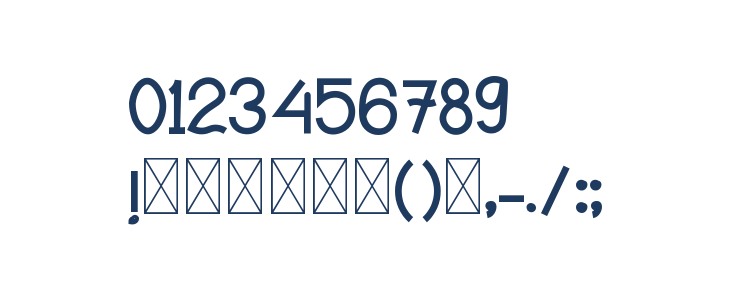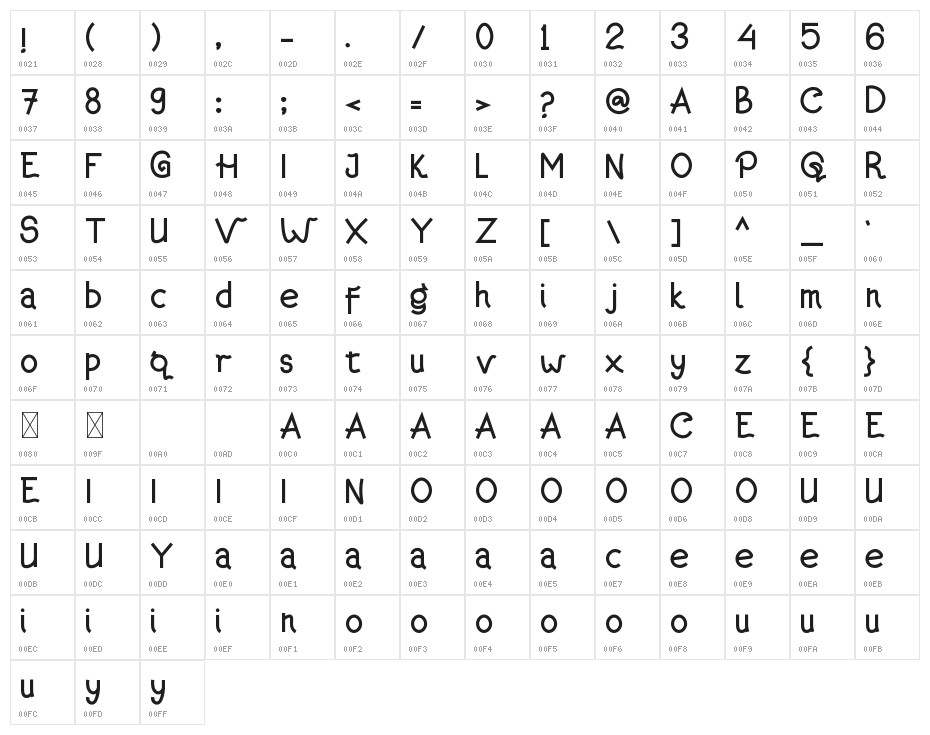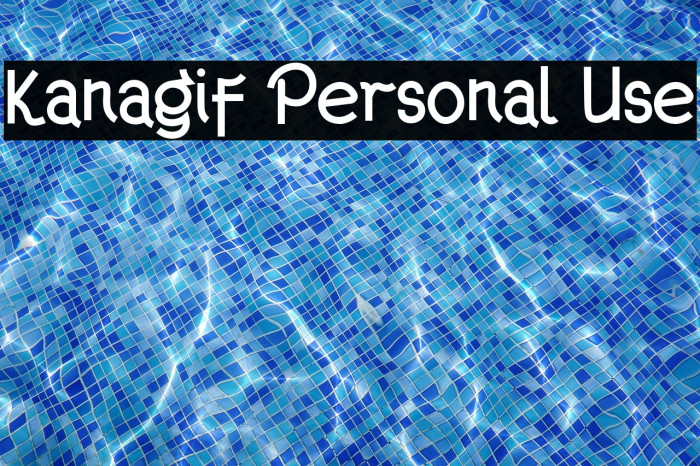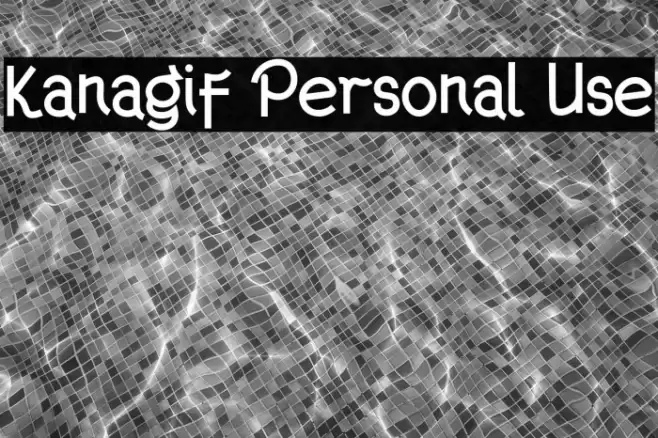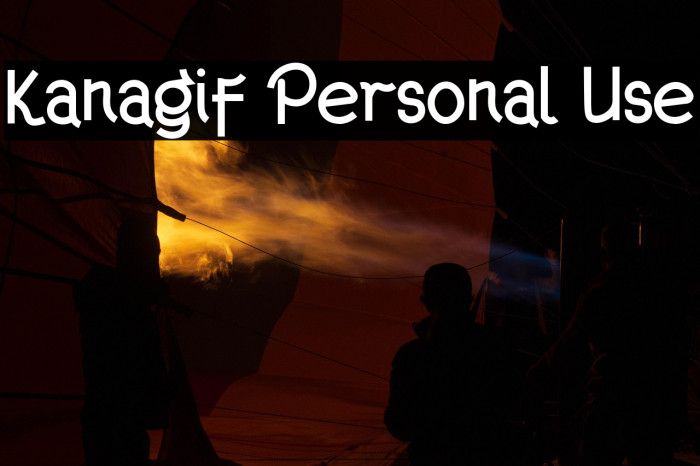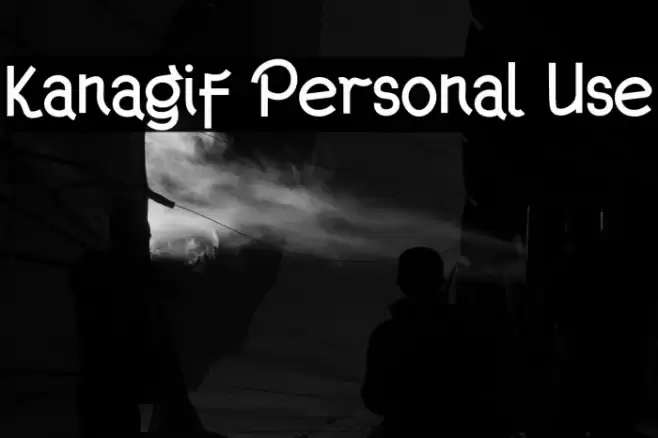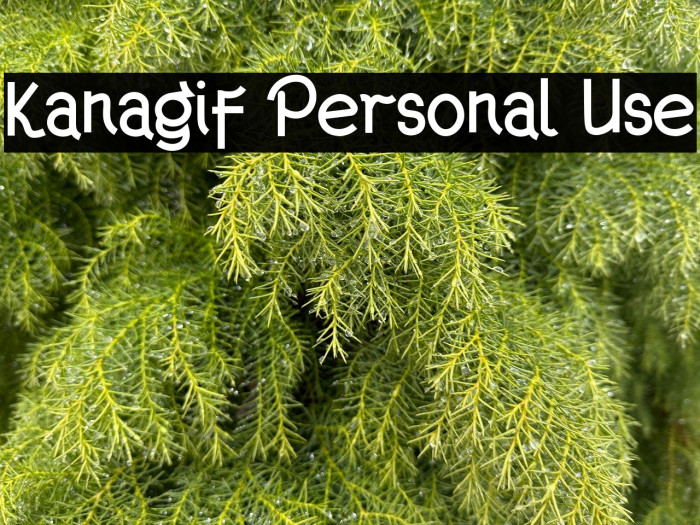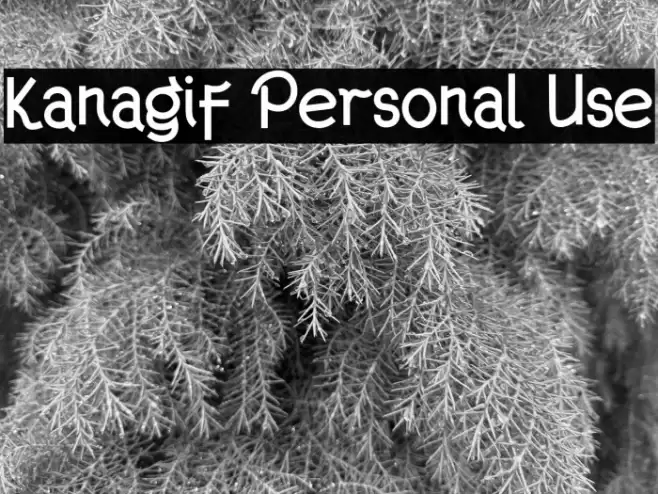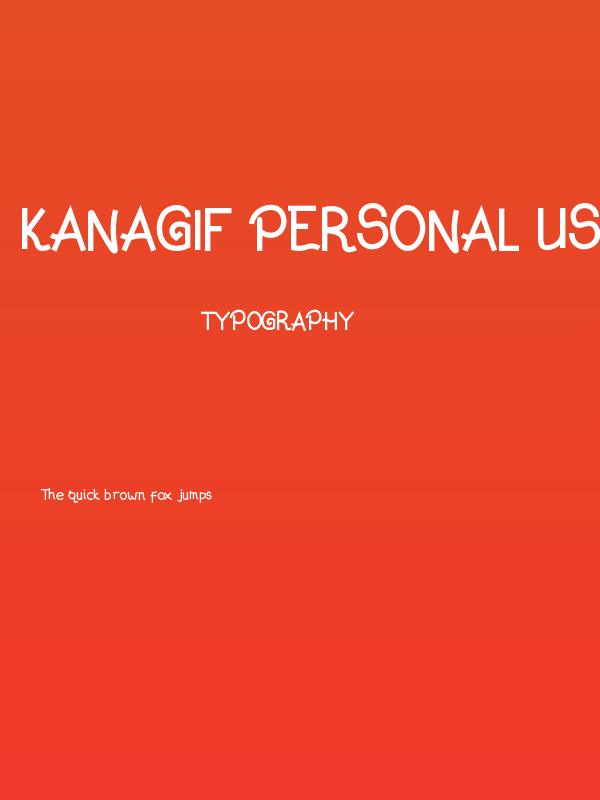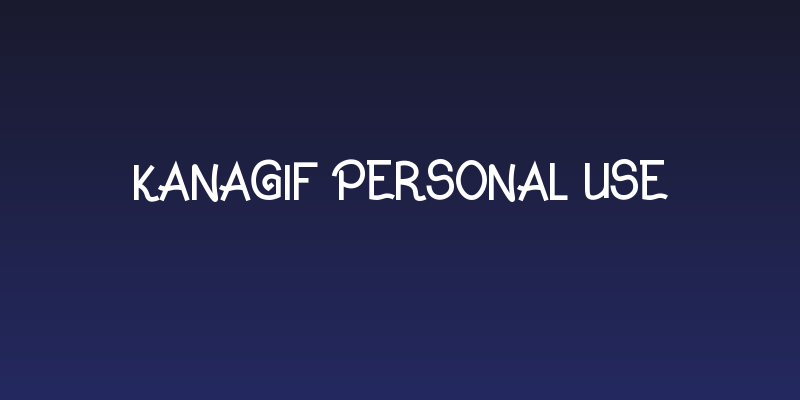
Kanagif Personal Use Font
Kanagif Personal Use Description
This playful and quirky font features a unique blend of rounded and angular elements, creating a whimsical yet structured appearance. The uppercase letters are bold and slightly irregular, with distinctive curves and loops that add character. The lowercase letters maintain a consistent style, with some characters exhibiting unexpected twists and turns that enhance the font's playful nature. Numbers are bold and clear, with a slight tilt that adds to the overall dynamic feel. Special characters are well-integrated, maintaining the font's cohesive style. This font is perfect for projects that require a fun and engaging visual element.
| Overall Style | Playful, Quirky |
| Proposed Projects | Children's books, playful branding, creative posters, and whimsical invitations. |